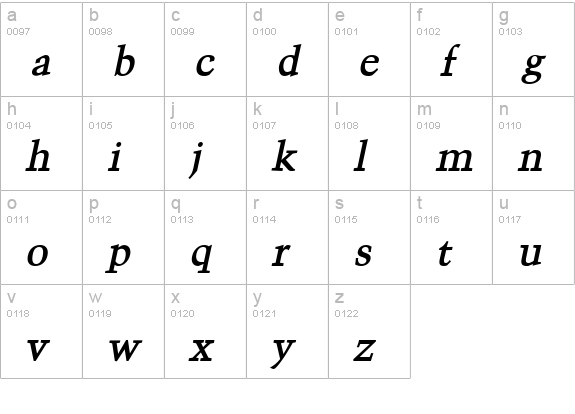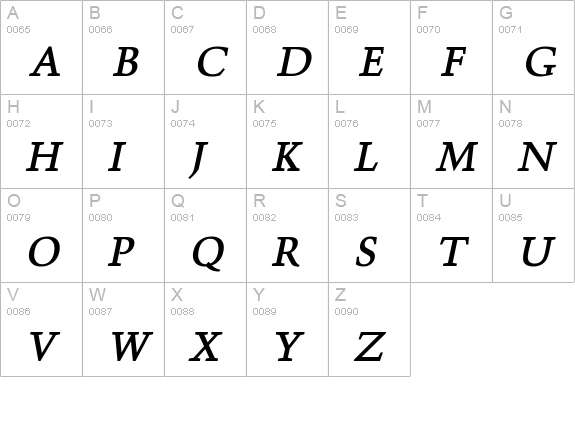
Congo Bold Italic Font Details
Congo Bold Italic is a strong, high-contrast, italic variant in the Congo typeface family \xE2\x80\x94 well suited to headlines, attention-grabbing titles, and strong calls-to-action.
Congo Bold Italic font is a striking and dynamic typeface that commands attention with its bold and slanted design. Perfect for making a statement, this font exudes confidence and modernity. The bold strokes and italicized slant of Congo Bold Italic add a touch of flair and sophistication to any design project. This versatile font is ideal for headlines, logos, branding, and other creative projects where you want to make a bold impact. Whether you're designing a poster, website, or marketing materials, Congo Bold Italic will help your text stand out and leave a lasting impression on your audience. Best of all, Congo Bold Italic font is available for free download at FontsMarket.com. So you can easily access this stylish and eye-catching typeface to enhance your design projects without breaking the bank. Don't miss out on the opportunity to add Congo Bold Italic to your font collection and take your designs to the next level.